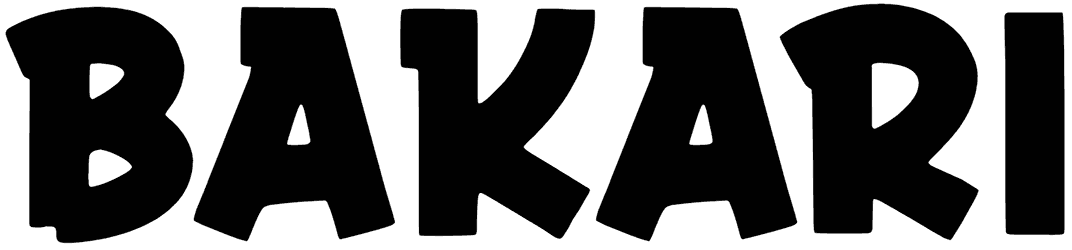
Bakari Font
Making a strong impact on the audience is not a difficult task with the help of a magical cartoon font such as Bakari that comes with a sense of dynamic, playfulness, jauntiness, and dreaminess.
This all-caps font would be included in a wide set of graphic content ranging from posters, comic books, brochures, and social media posts, to editorial projects. Just in case you require another font in the same category, don’t doubt to visit our archive.